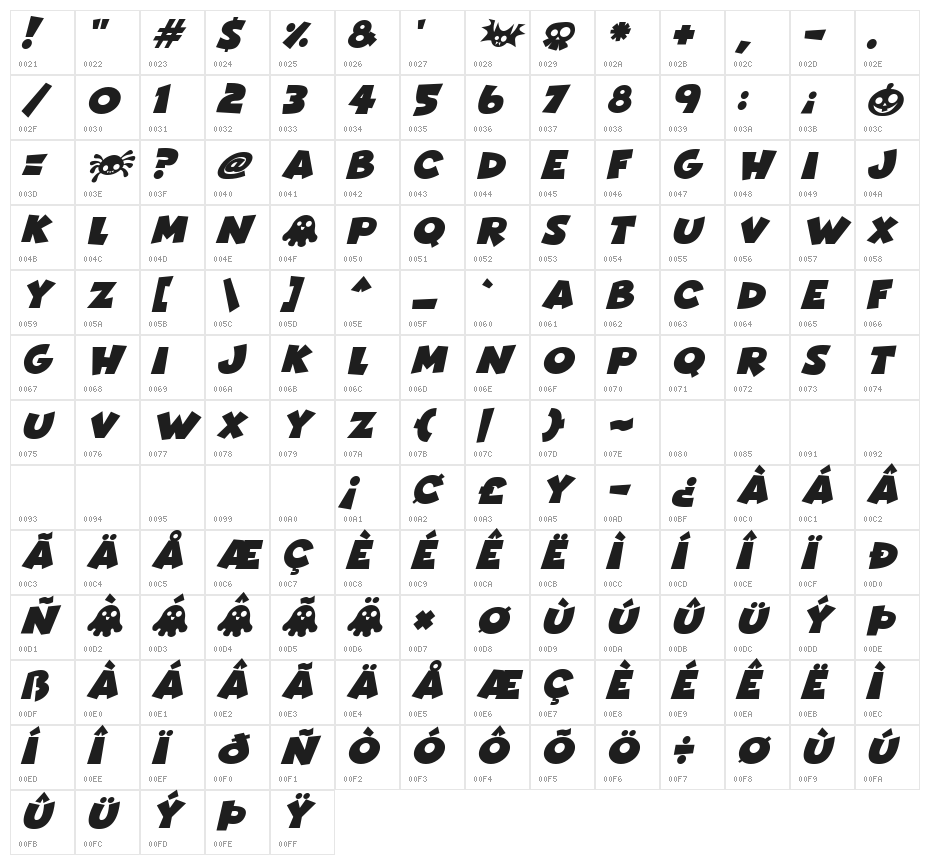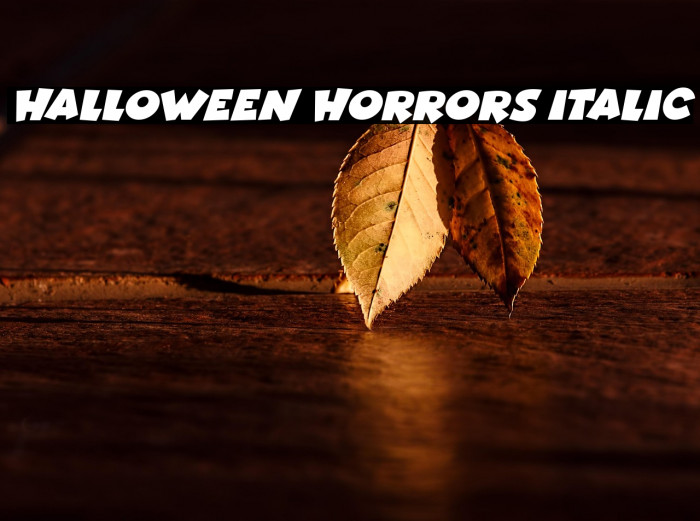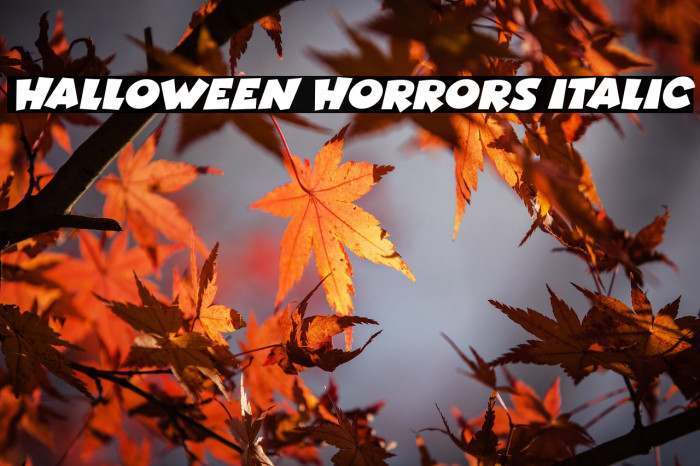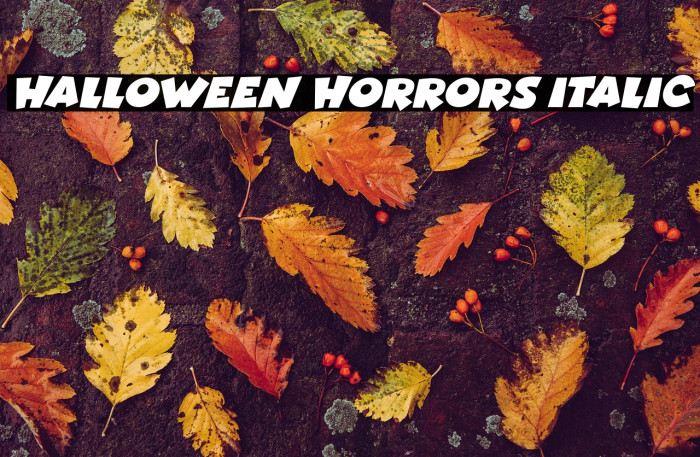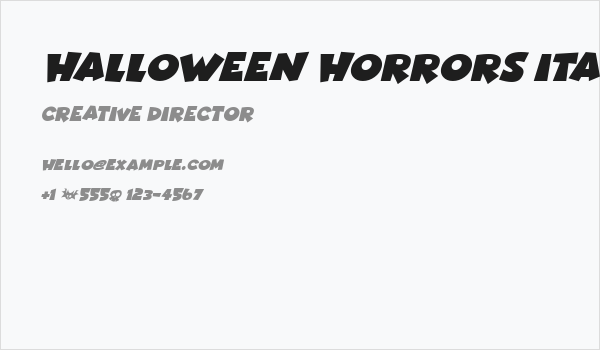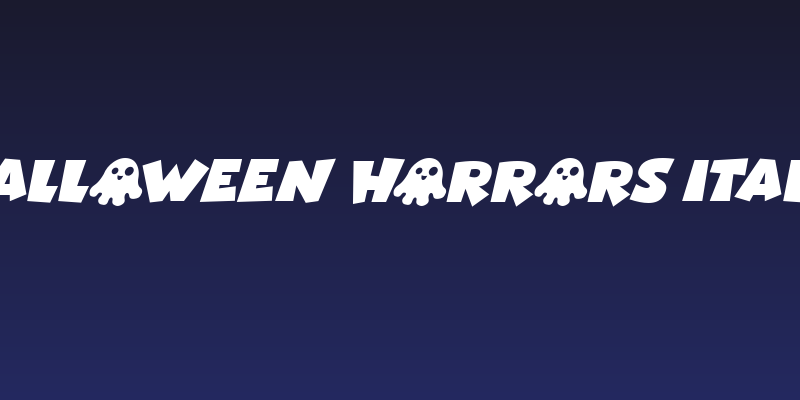
Halloween Horrors Italic Font
Halloween Horrors Italic Description
This font exudes a playful yet eerie vibe, perfect for Halloween-themed designs. The letters are bold and italicized, with a distinct slant that adds a sense of movement and urgency. The characters have a jagged, irregular edge, reminiscent of classic horror movie posters. Special characters include spooky elements like a ghost and a skull, enhancing its thematic appeal. The numbers and punctuation maintain the same bold, dynamic style, ensuring consistency across all text elements.
| Proposed Projects | Ideal for Halloween party invitations, horror movie posters, themed merchandise, and spooky social media graphics. |